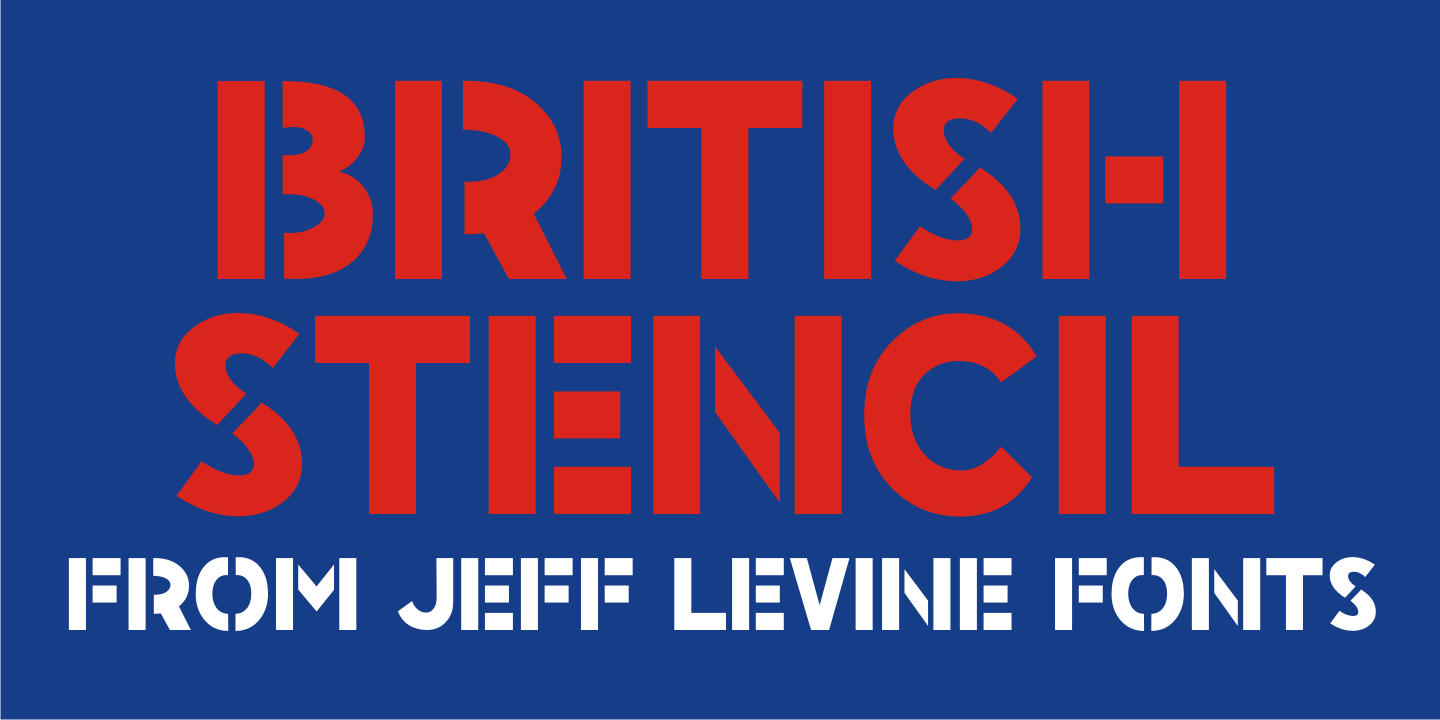
British Stencil
British Stencil JNL was sketched from images of a vintage stencil set made by Reese and Sons of England that was being sold on ebay. In truth, this is a semi-stencil, as some of the characters are solid; lacking the breaks in the letter shapes so typical of stencil alphabets.
British Stencil JNL Regular by Jeff Levine Fonts